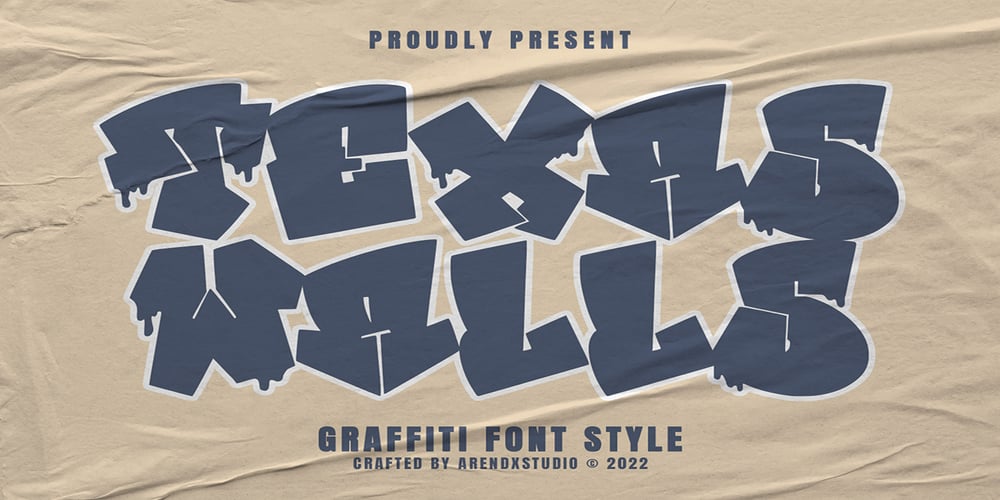
Texas Walls
Texas Walls font
Texas Walls Font Family was designed by Asep Rendi and published by Arendxstudio. Texas Walls contains 1 styles and family package options. Texas Walls – Graffiti Font Style is a free style font that has the characteristics of street art that shows freedom and is filled with unique charactersFeatures : • Character Set A-Z • Numerals & Punctuations (OpenType Standard) • Accents (Multilingual characters) • Ligature • Alternate